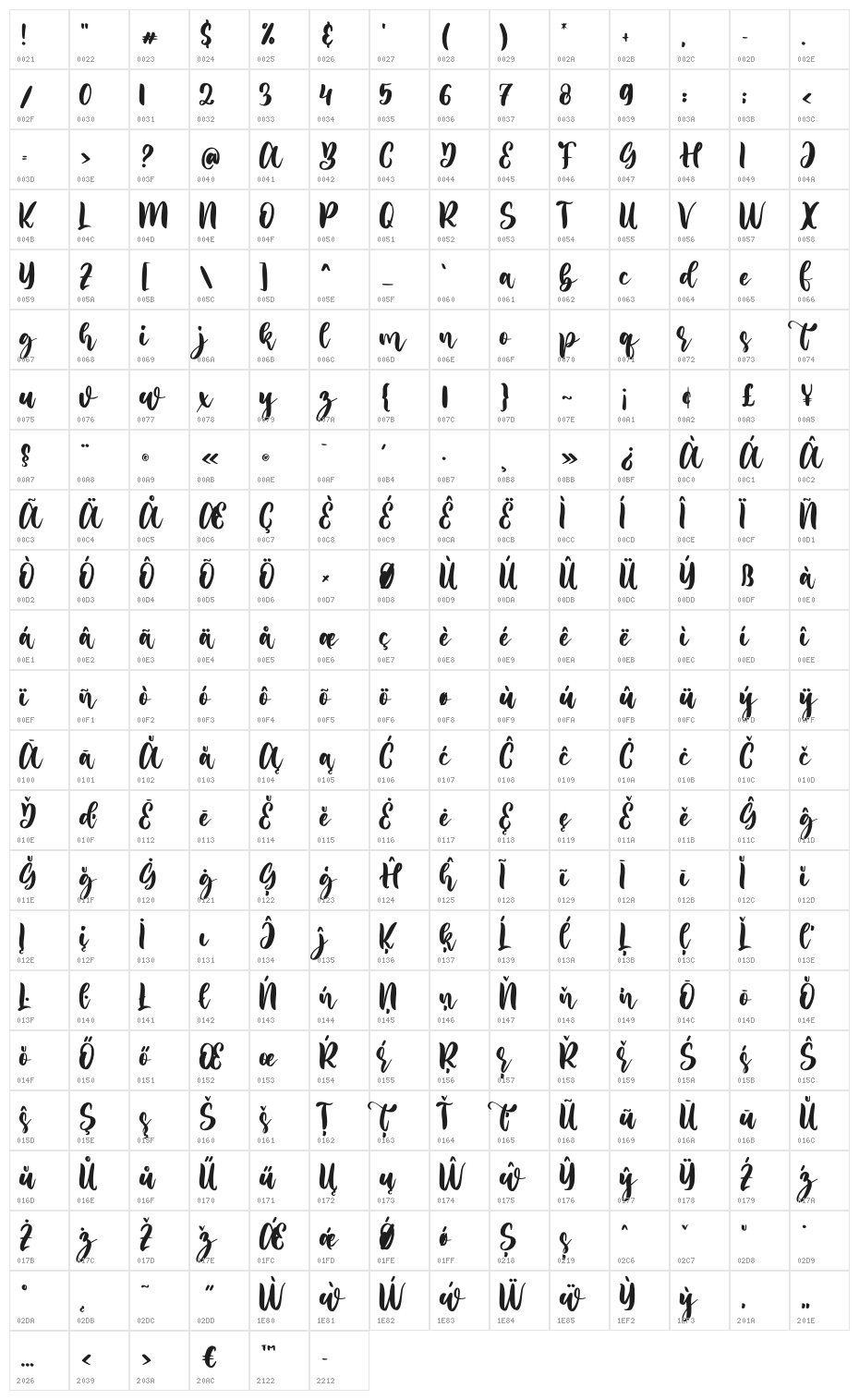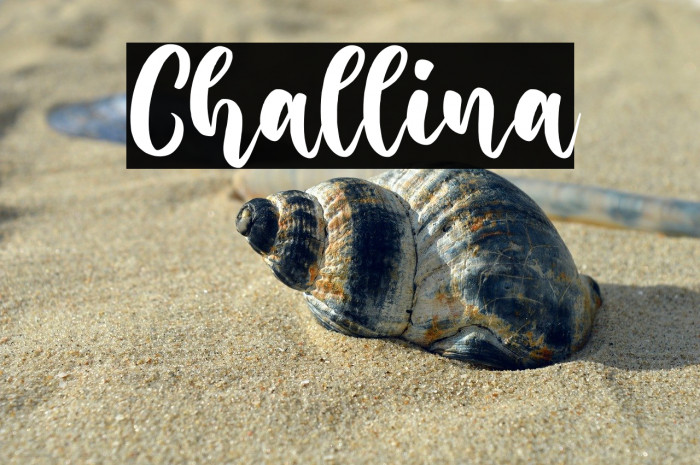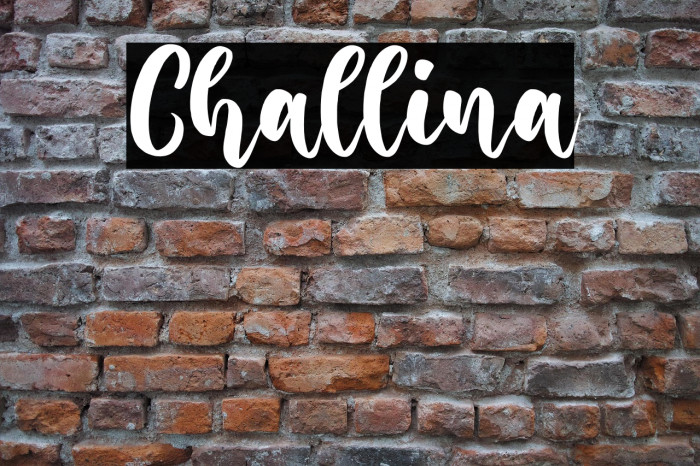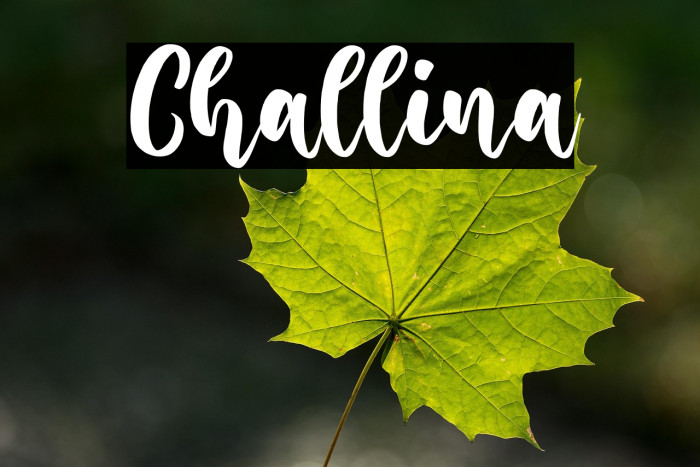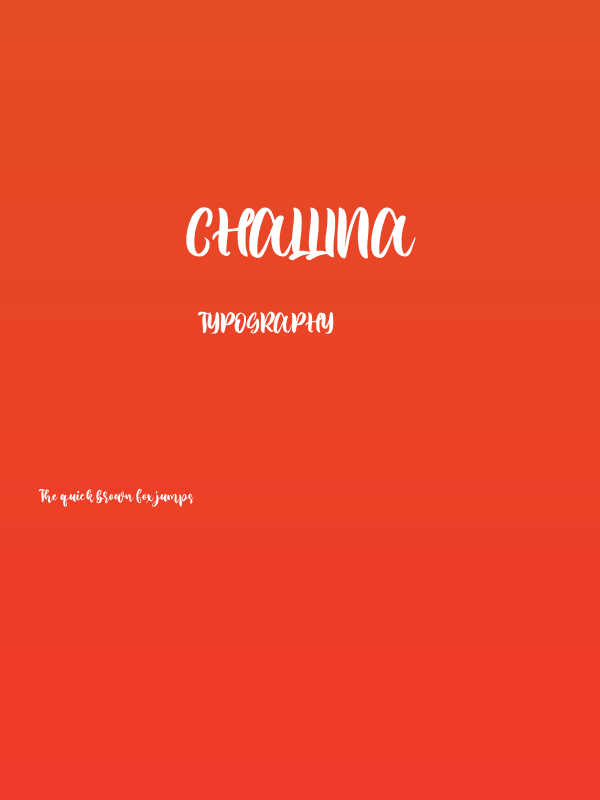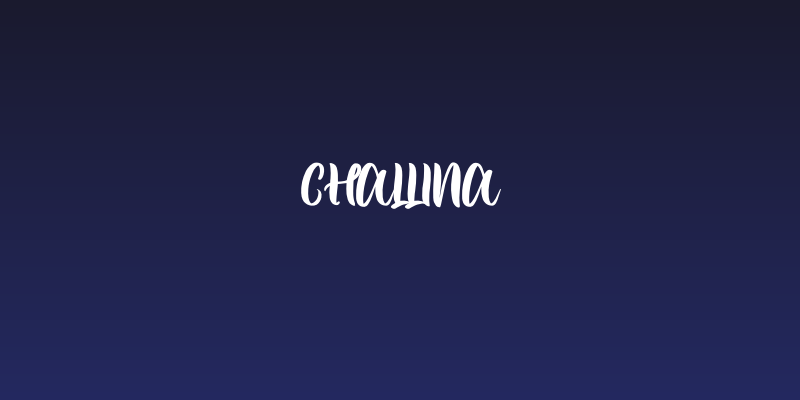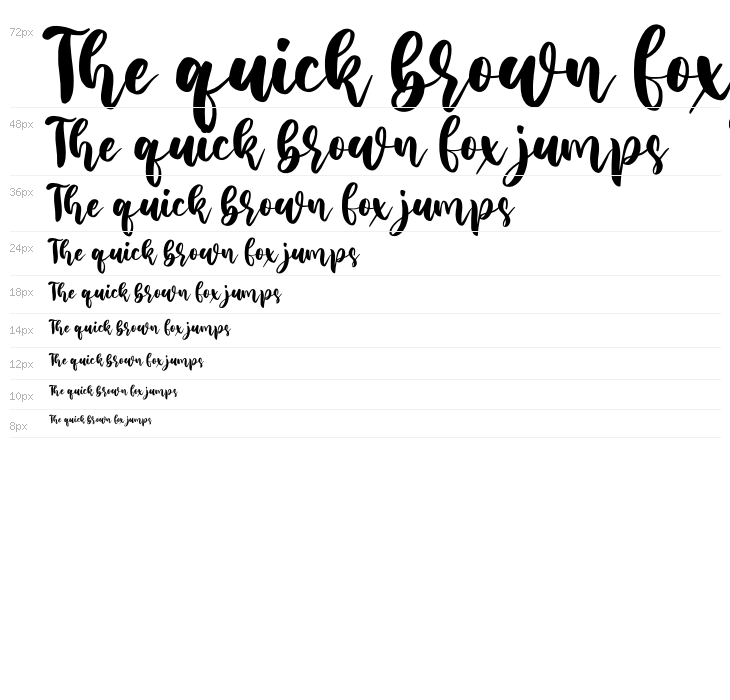
Challina Font
Challina Description
This font features a bold and expressive script style, characterized by its flowing, cursive letters that exude a sense of elegance and creativity. The uppercase and lowercase letters are designed with a consistent stroke width, giving the font a harmonious and balanced appearance. The characters are slightly slanted, enhancing the dynamic and lively feel of the text. The numbers and special characters maintain the same stylistic approach, ensuring uniformity across all elements. This font is ideal for projects that require a personal touch, such as invitations, greeting cards, and branding materials. Its artistic flair makes it suitable for creative and decorative purposes.
| Proposed Projects | Ideal for invitations, greeting cards, branding, and decorative projects. |